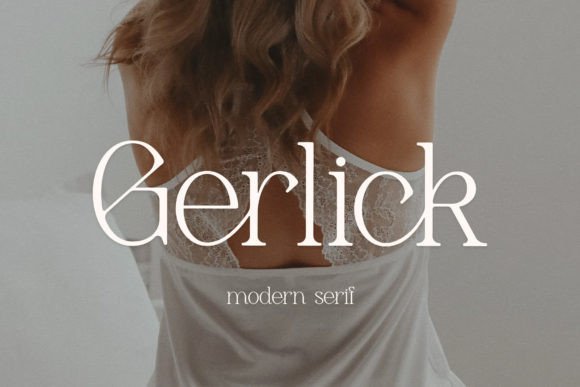
The Perfect Blend of Elegance and Sophistication: Unveiling the Gerlick Font
Have you ever stared at a beautifully crafted logo or title and wondered what makes it so captivating? The answer often lies in the font. A well-chosen font can elevate a design from ordinary to extraordinary. For designers, finding that perfect font can be a game-changer. And that’s where the Gerlick Font comes in – a modern and classic serif typeface that exudes sophistication and elegance.
Designed with luxury and refinement in mind, the Gerlick Font is perfect for creating high-end logos, book titles, and magazine covers. Its unique style and modern look make it an excellent choice for fashion brands, clothes, and lettering projects. Whether you’re looking to create a sense of opulence or simply want to add a touch of class to your design, the Gerlick Font is an invaluable tool in your creative arsenal.
- Unique Characteristics: Gerlick Font features a unique blend of modern and vintage elements, with intricate details and flourishes that add a touch of elegance to any design.
Gerlick Font Review
I’ve had the chance to work with the Gerlick font, and overall, I’m quite impressed with its unique features and capabilities. Here’s what I think works well:
- ✨ Uniqueness: Gerlick has a distinct, modern aesthetic that sets it apart from more traditional fonts. Its unconventional design makes it perfect for projects that need a bold statement.
- ✨ Versatility: Despite its bold appearance, Gerlick is surprisingly readable at various font sizes, making it suitable for both large-scale headings and smaller body text.
- ✨ Compatibility: Gerlick seems to render well across different platforms and devices, including web browsers, desktop applications, and mobile devices.
However, there are some limitations that prevent me from giving it a full score:
- ⚠️ Limited font weights: While Gerlick has a good selection of font styles, it’s somewhat limited in terms of font weights. This can make it harder to create subtle text hierarchy and differentiation.
- ⚠️ Potential legibility issues: In certain situations, the font’s boldness can lead to legibility problems, especially when used in conjunction with small font sizes or complex text layouts.
Overall, I think Gerlick is a solid choice for designers looking to add a modern, edgy touch to their projects. While it’s not perfect, its unique features and versatility make it a valuable addition to any font library.
1. Headlines and titles: Gerlick Font’s unique style makes it perfect for attention-grabbing headlines.
2. Branding: Use Gerlick Font consistently across your brand’s marketing materials for a cohesive look.
3. Creative projects: Gerlick Font is ideal for artistic and design-focused projects where a unique font is desired.